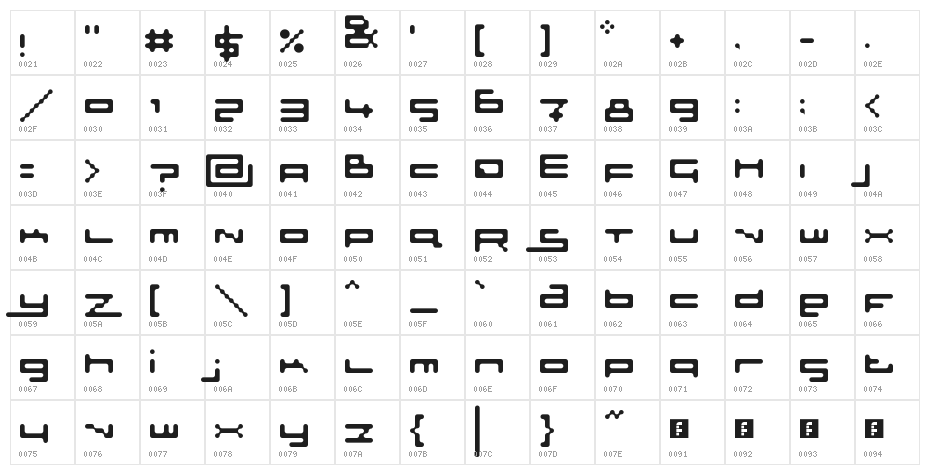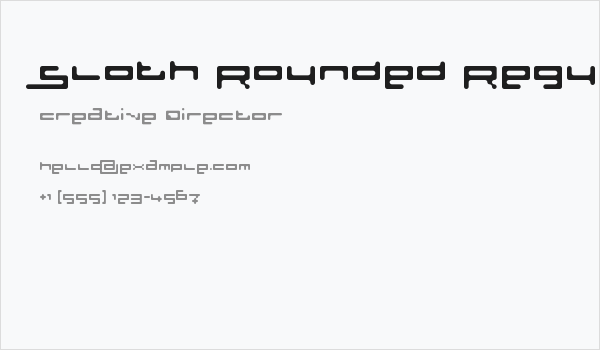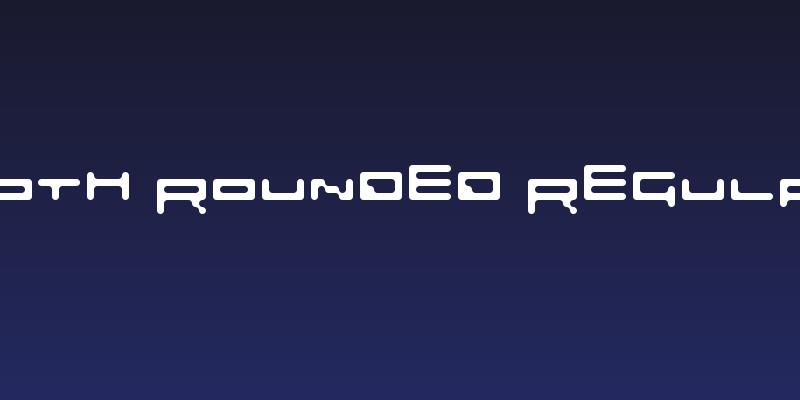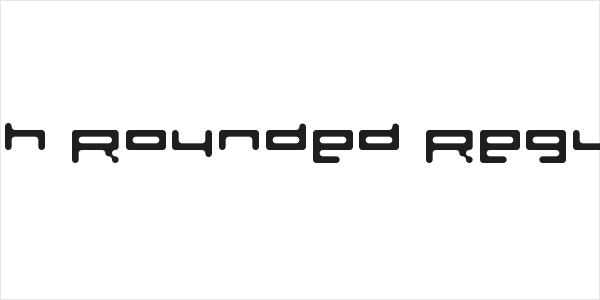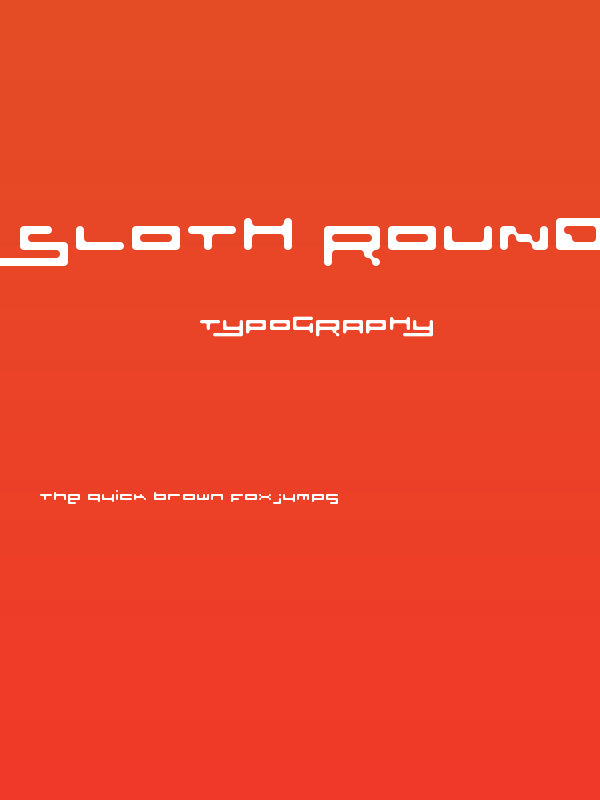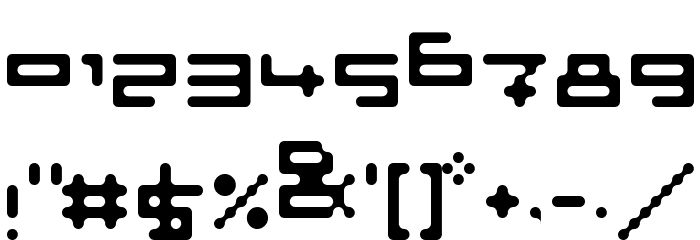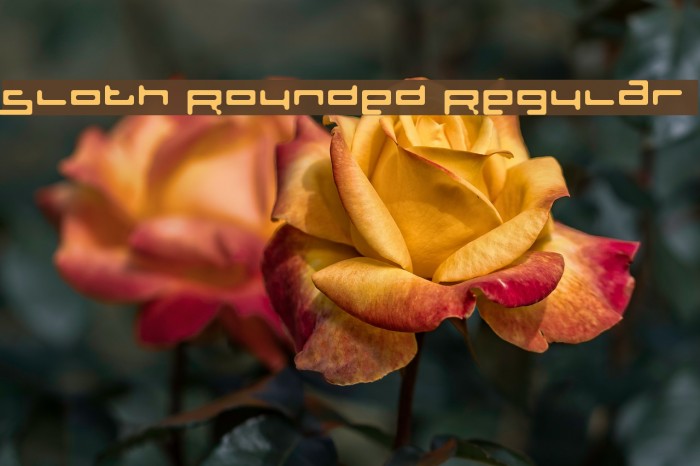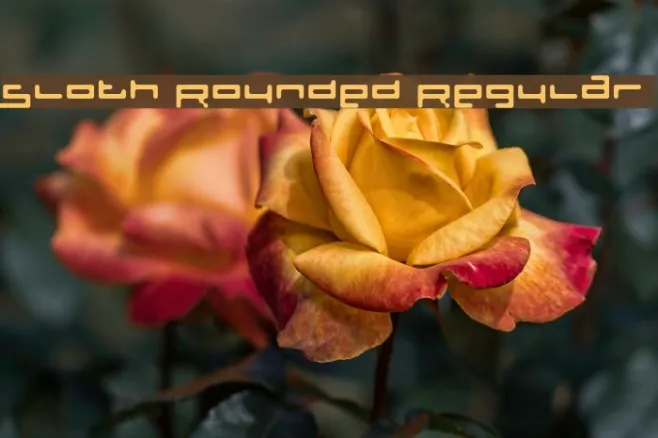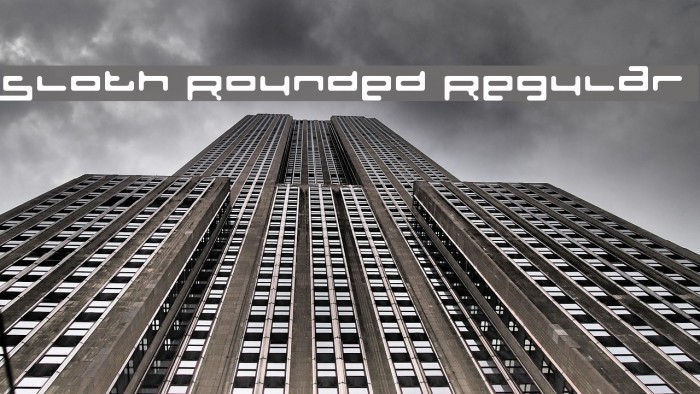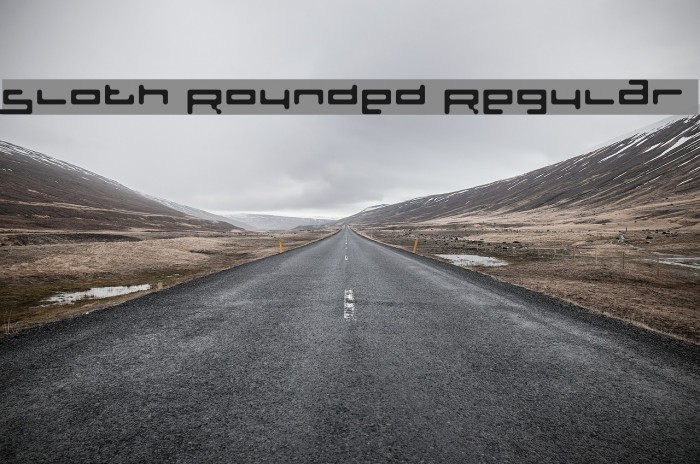
Sloth Rounded Regular Font
Sloth Rounded Regular Description
This font features a modern, rounded design with a futuristic and playful aesthetic. The characters are bold and have a consistent thickness, creating a strong visual impact. The rounded edges give it a friendly and approachable feel, while the geometric shapes add a touch of sophistication. The font maintains a uniform width across all characters, ensuring readability and balance. It is suitable for digital displays and projects that require a contemporary and unique look. The special characters and numbers are designed to match the overall style, maintaining the rounded and bold characteristics.
| Proposed Projects | Ideal for digital displays, tech branding, modern posters, and playful logos. |